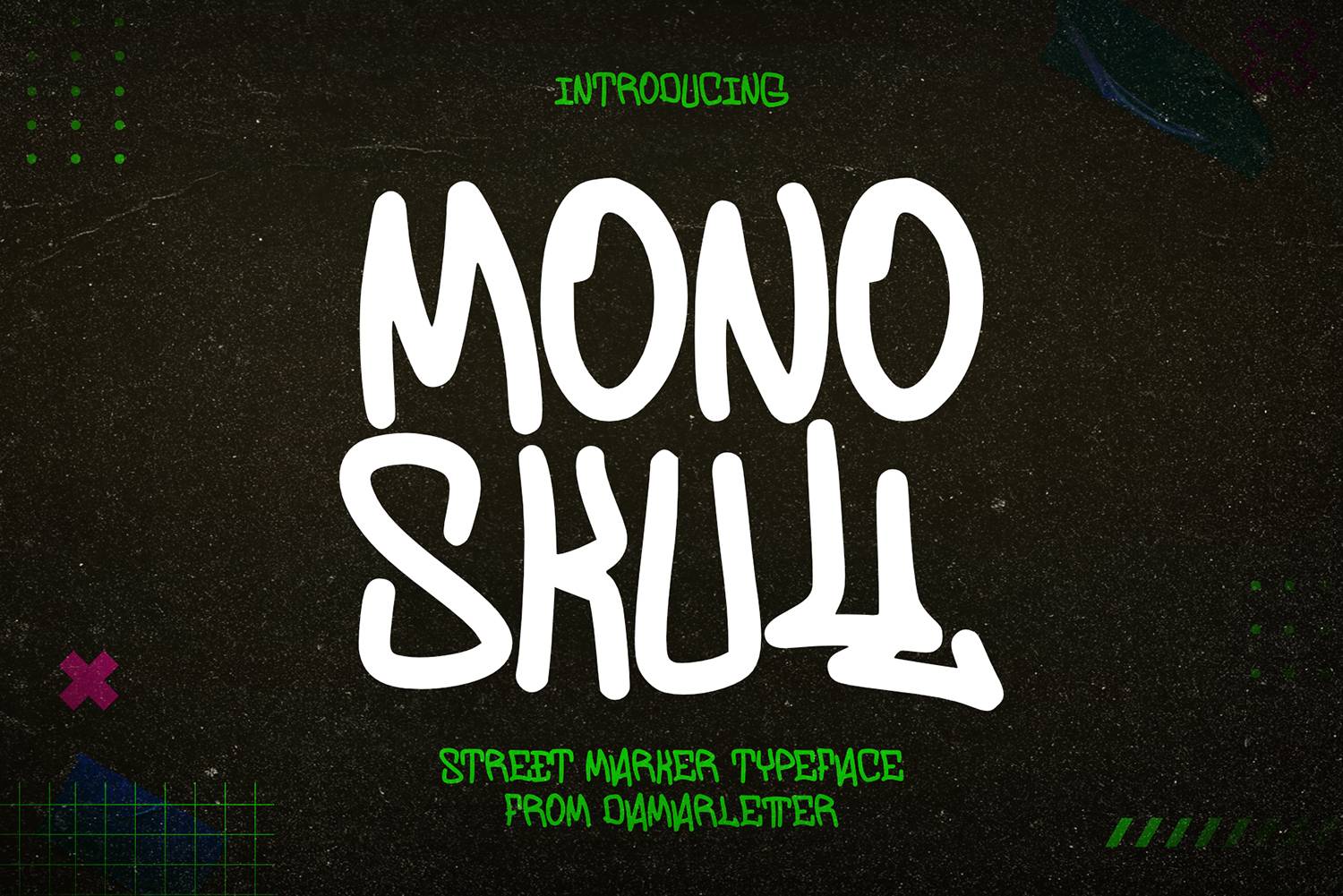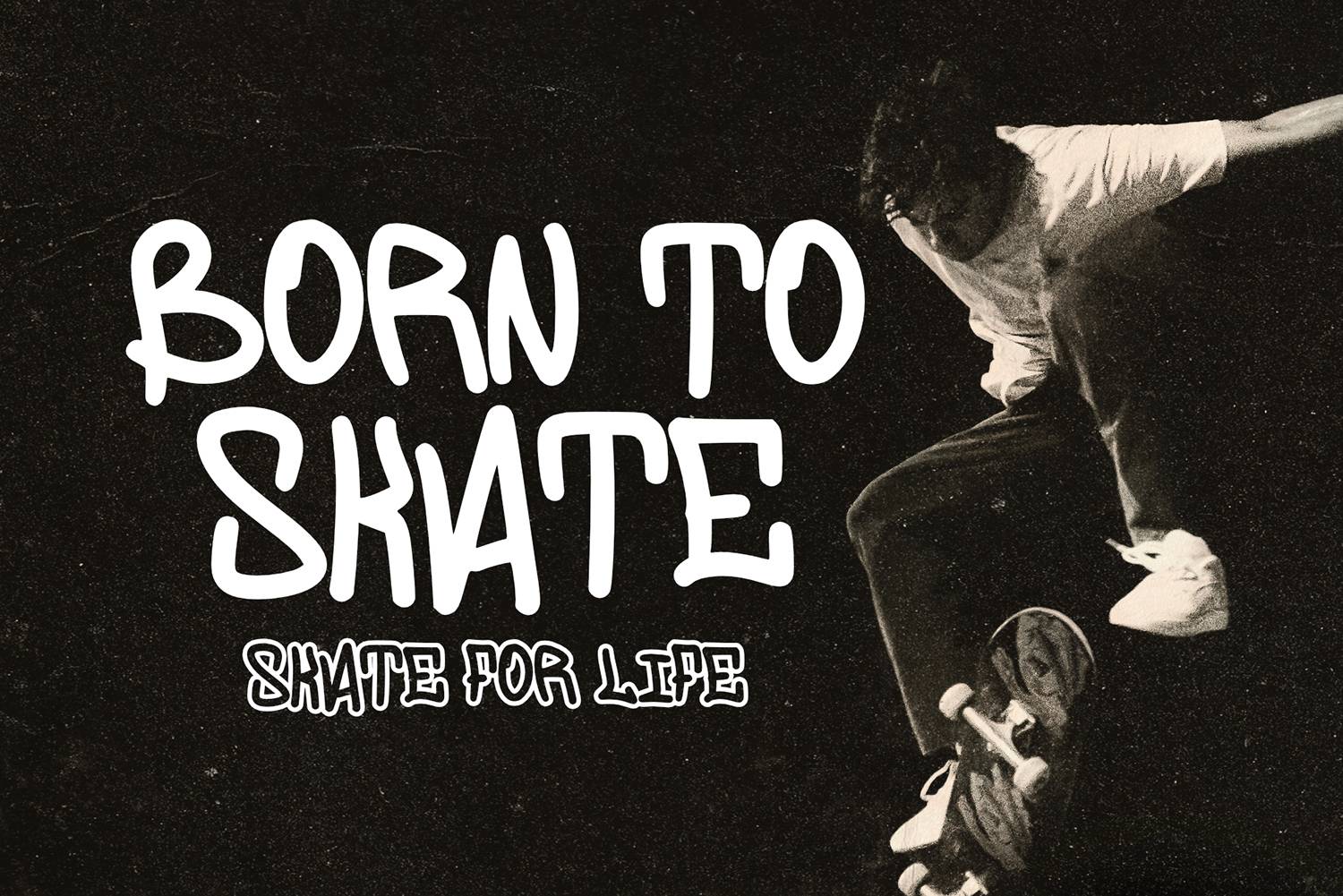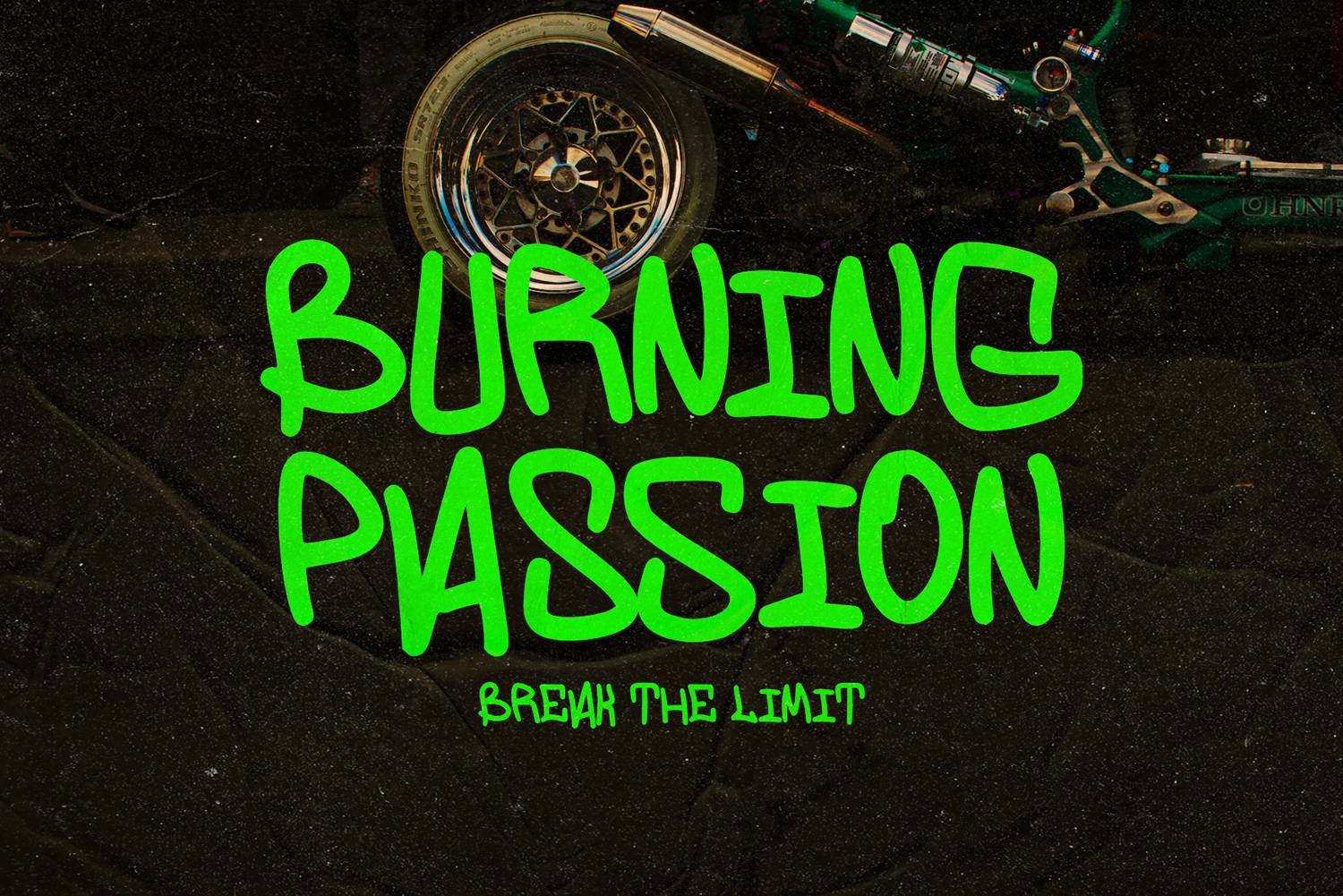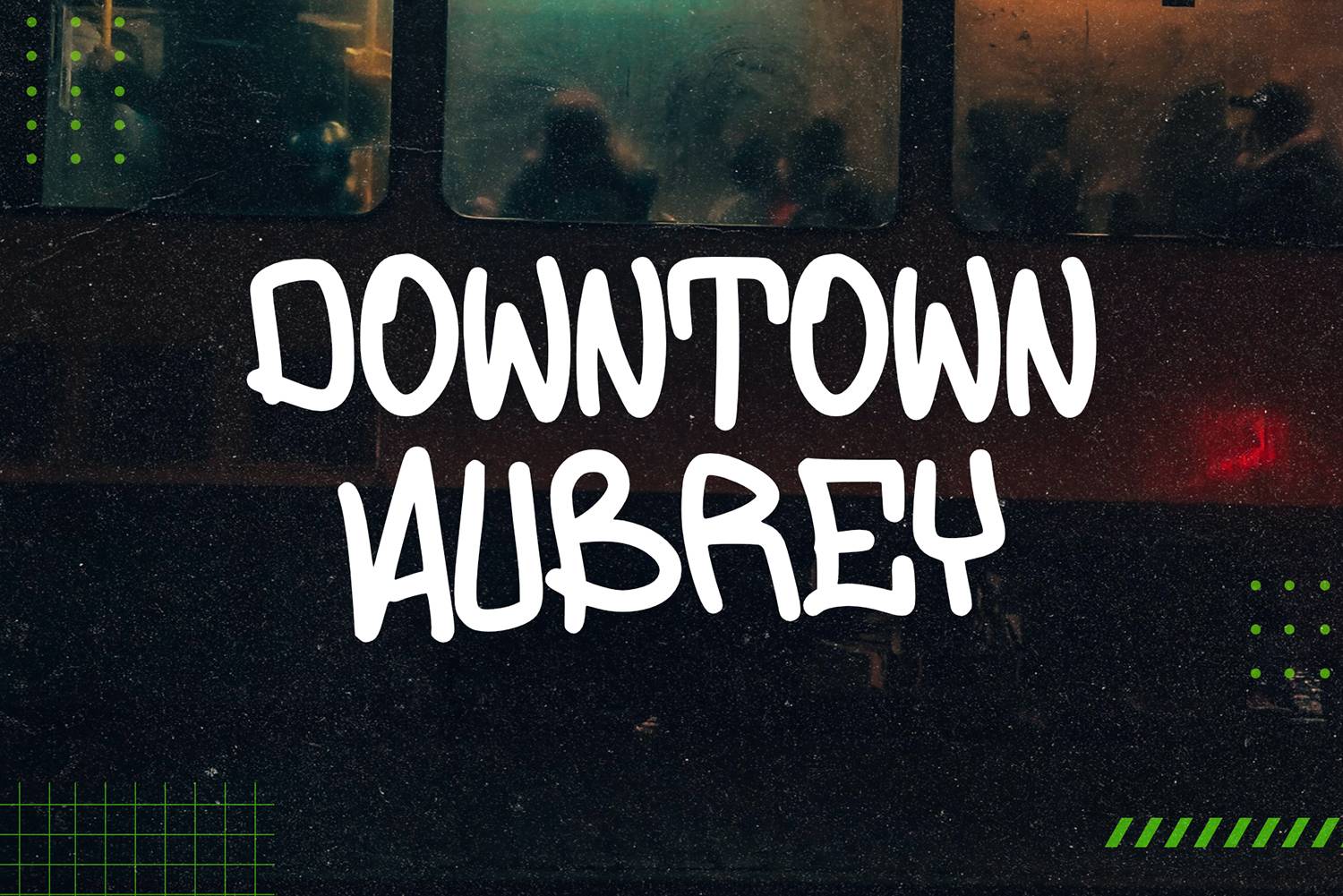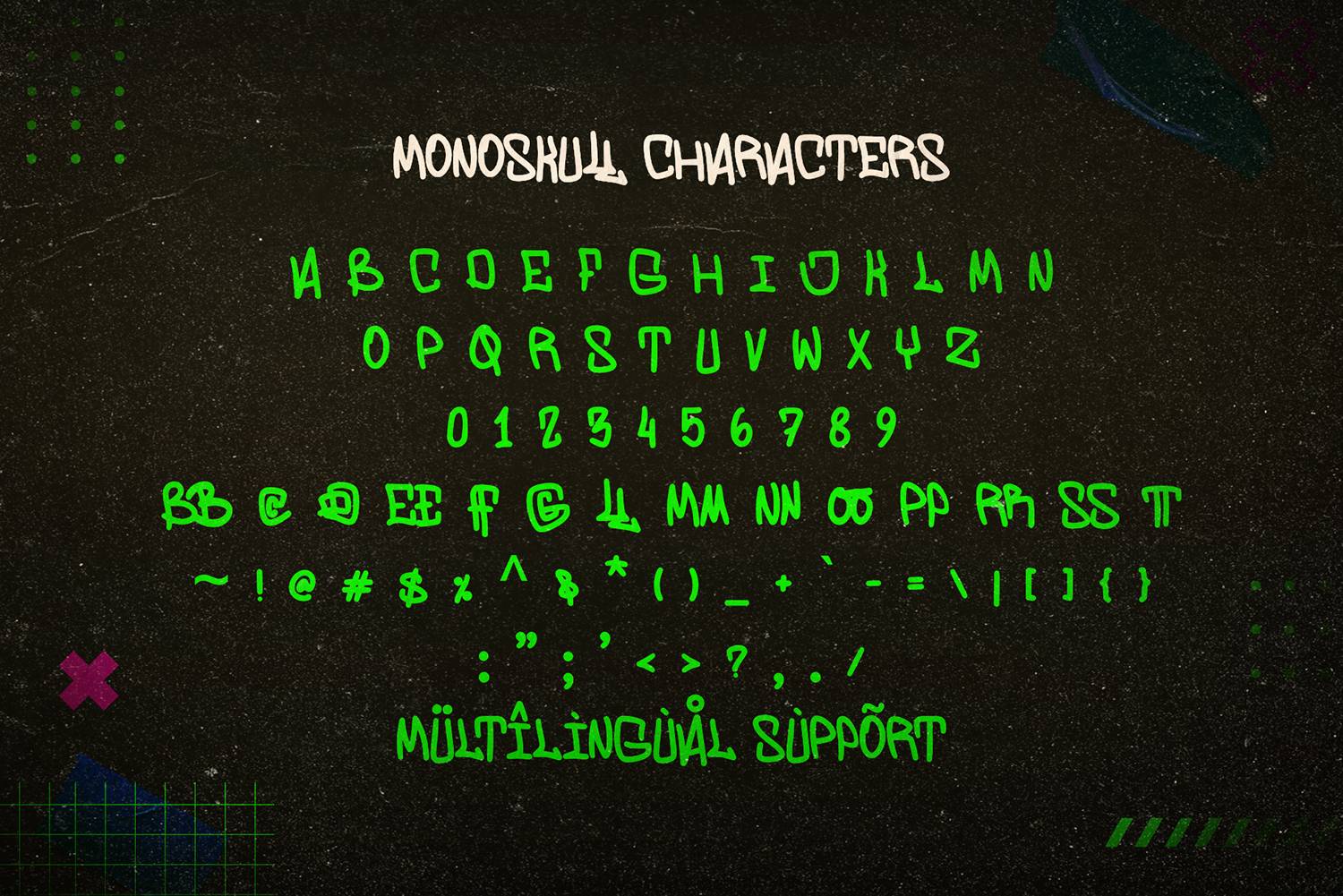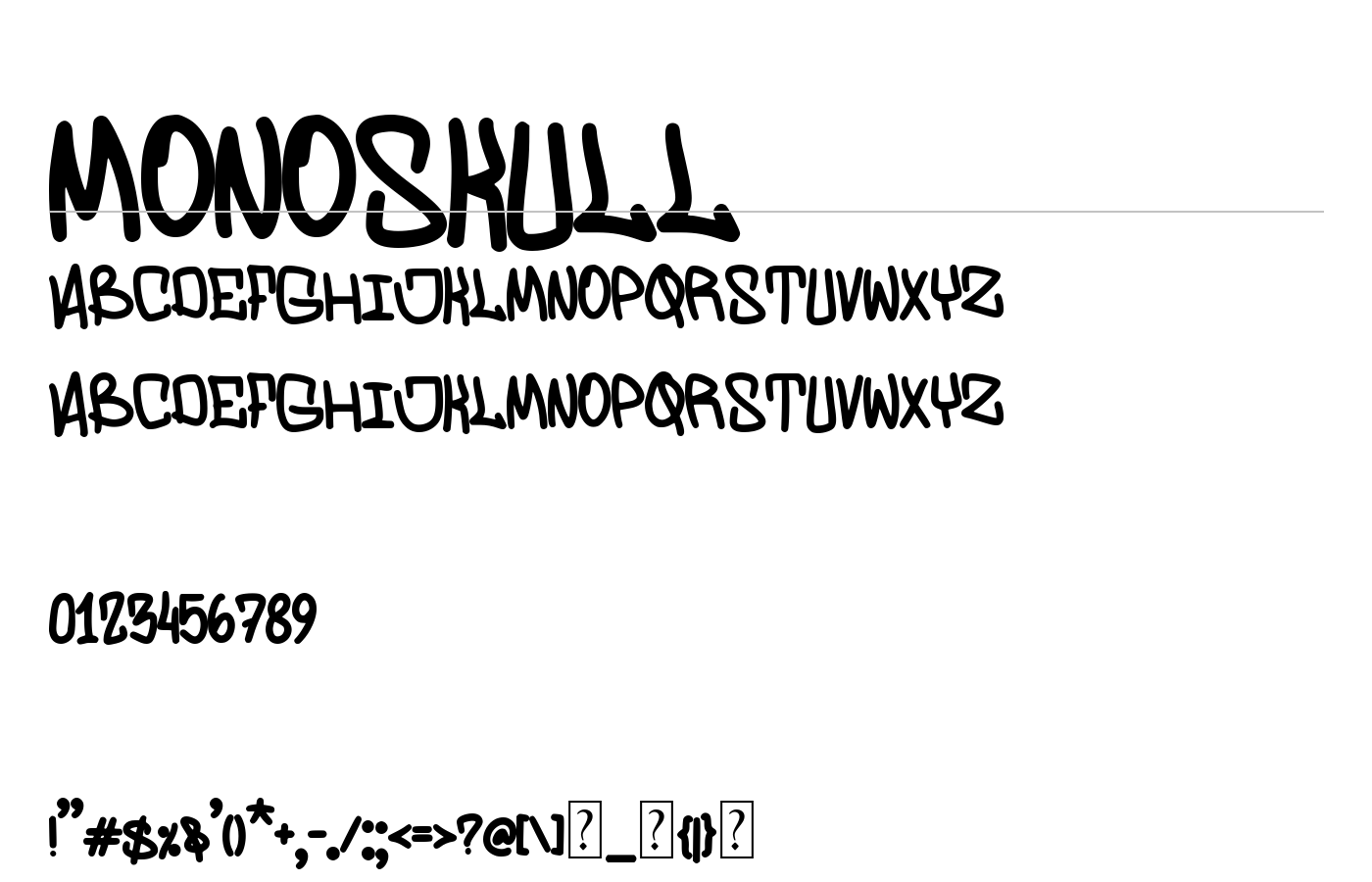
Monoskull is a quirky, hand-drawn sans serif font with a playful and informal vibe. Its irregular stroke widths and slightly condensed letterforms create a lively, casual feel that works well for fun, creative projects, such as posters, cartoons, or youth-oriented branding. This font’s unique style adds personality and charm, making it great for headlines or display uses where a relaxed, expressive tone is desired.
Monoskull Font
About Monoskull Font
| Font family | Monoskull Font |
| Release date | 2022-07-29 |
| Designer | Ardian Nuvianto |
| Trademark | Damarletter |